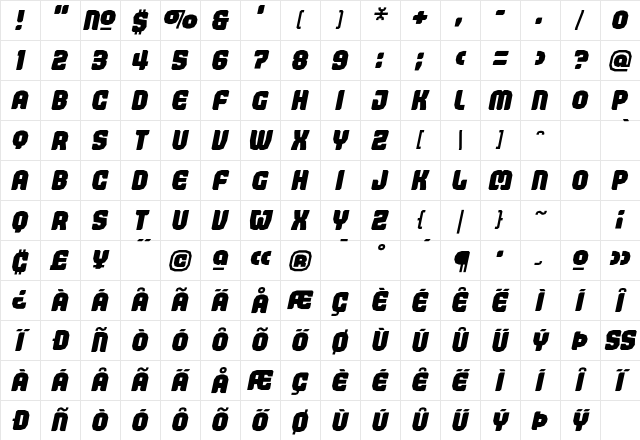
Judgement BlackItalic Free Font
Judgement BlackItalic
Style: BlackItalic
Judgement Family
Judgement BlackItalic
Design Context for Judgement
Judgement is a composed and adaptable typeface that performs quietly and consistently across a wide range of design contexts. The slanted form adds forward momentum and visual energy.
Pro Tip: Use Judgement for emphasis, pull quotes, and subheadings where its slanted energy can add rhythm to the layout.